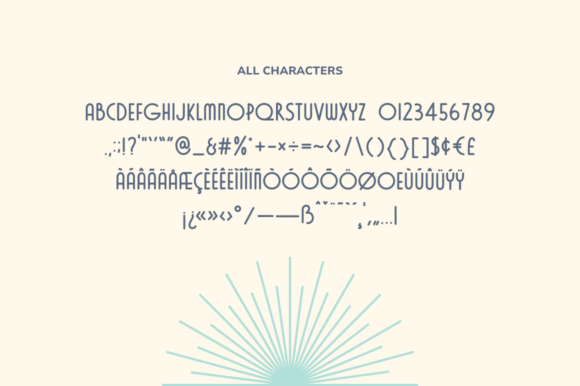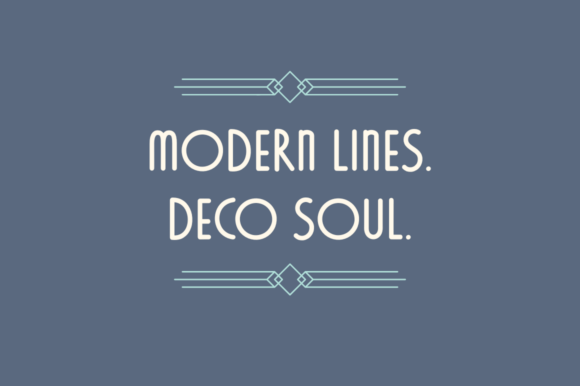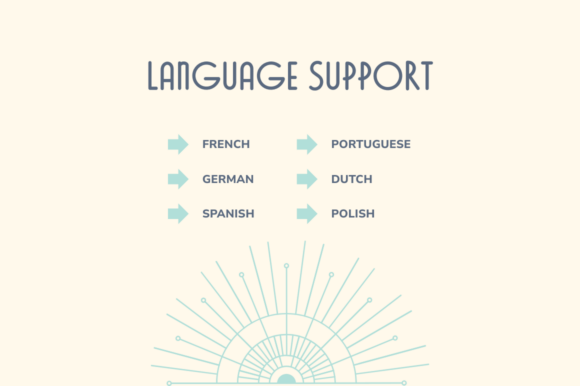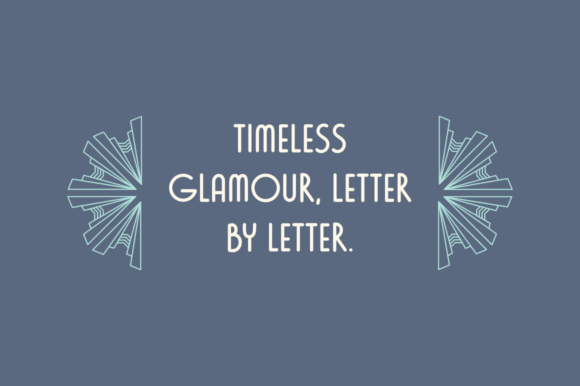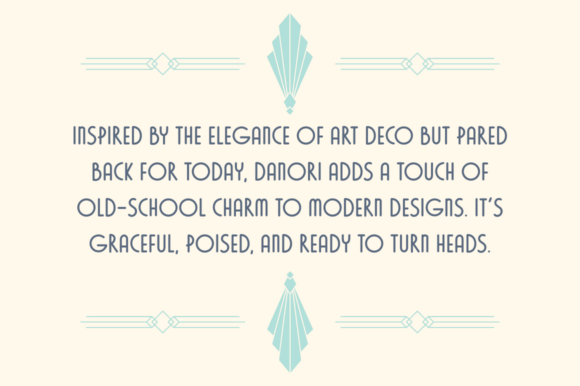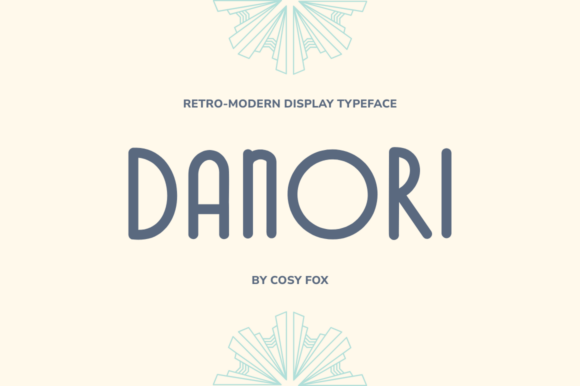
Introducing Danori: A Charming Retro Hand-Drawn Font with a Modern Twist
Are you a designer or crafter looking for a unique and stylish font to add a touch of nostalgia to your projects? Look no further than Danori, a lovely retro hand-drawn font that echoes the 1920s style of lettering, but with a modern twist. In this article, we’ll take a closer look at Danori, its features, and what makes it a must-have for any creative project.
A Retro-Inspired Font with a Modern Edge
Danori is a beautifully crafted font that draws inspiration from the 1920s era of lettering. With its elegant lines, curvaceous shapes, and classic typography, Danori is the perfect choice for designers and crafters who want to add a touch of vintage charm to their work. But what sets Danori apart is its modern twist, making it a versatile font that can be used in a variety of creative projects, from digital designs to print materials.
Language Support
Danori comes with language support for French, German, Spanish, Italian, and Portuguese, making it a great choice for designers and crafters who work with international clients or want to create multilingual content. Whether you’re creating a brochure, website, or social media graphics, Danori has got you covered.
Danori is a versatile font that can be used in a variety of creative projects, including:
- Digital designs: Use Danori to create stunning social media graphics, blog posts, and website headers.
- Print materials: Add a touch of elegance to your brochures, flyers, and business cards with Danori.
- Crafting projects: Use Danori to create beautiful handmade cards, scrapbook pages, and other paper crafts.
Why Choose Danori?
So why choose Danori over other fonts? Here are just a few reasons:
- Unique and stylish: Danori is a one-of-a-kind font that will add a touch of personality to your designs.
- Versatile: Danori can be used in a variety of creative projects, from digital designs to print materials.
- Language support: Danori comes with language support for French, German, Spanish, Italian, and Portuguese.